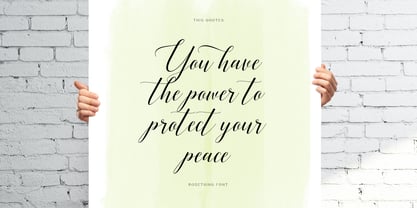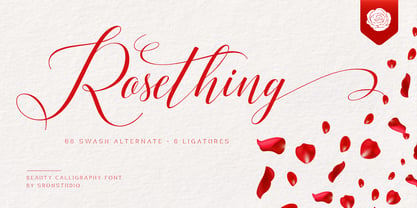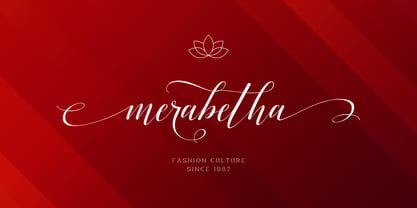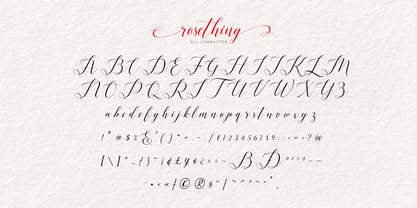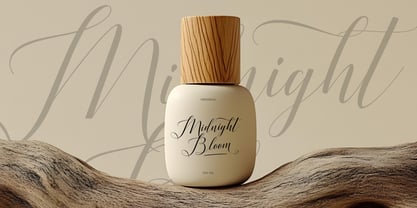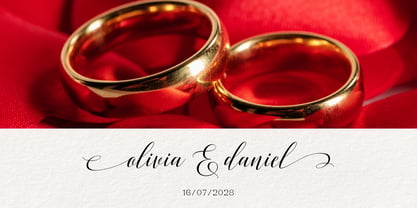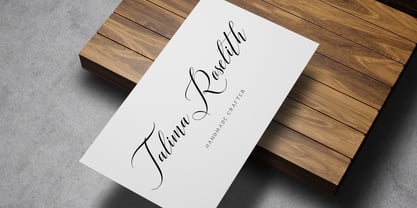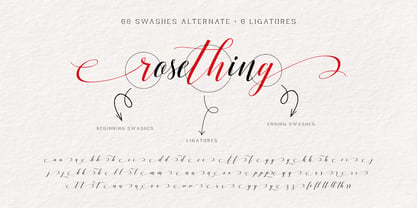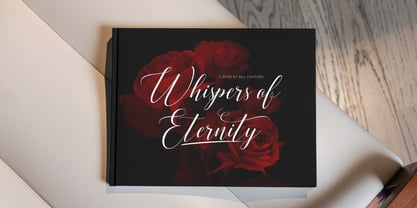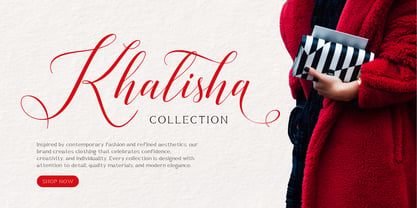
Rosething
by Sronstudio
The Rosething Font Family was designed by Muhamad Yusron Billah and published by Sronstudio. Rosething contains 1 styles. More about this family
Rosething is a beautiful calligraphy font that captures elegance, romance, and graceful artistry. With its flowing strokes, delicate curves, and refined letterforms, this font is perfect for wedding invitations, luxury branding, greeting cards, logos, and romantic design projects. Rosething brings a soft and sophisticated touch to every word, creating typography that feels personal, charming, and timeless. What’s Included: - 68 Swash Alternates & 6 Ligatures - Numerals & punctuation - PUA encoded for easy access - Multilingual support - Works seamlessly on Mac & Windows Thank you very much!